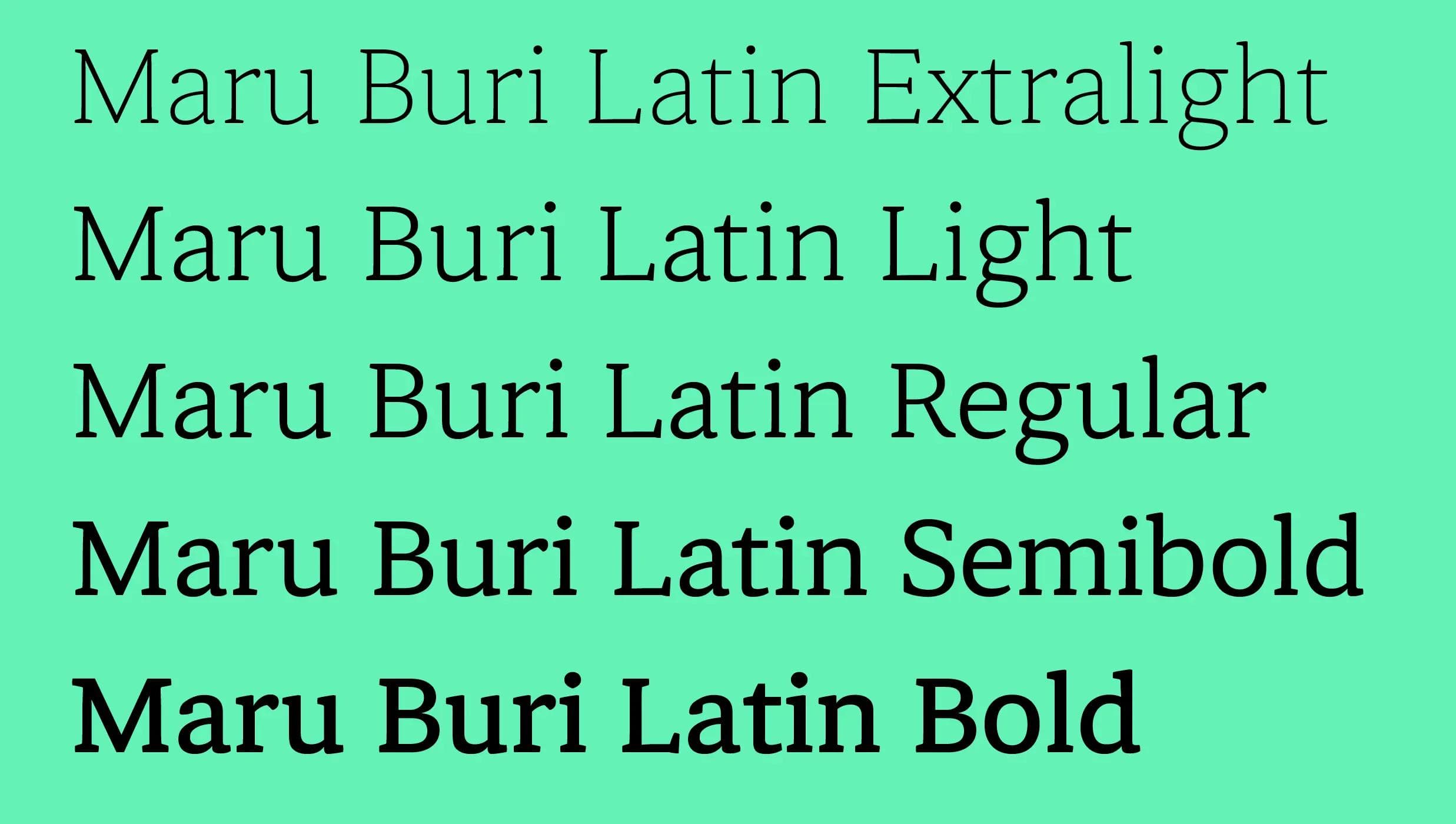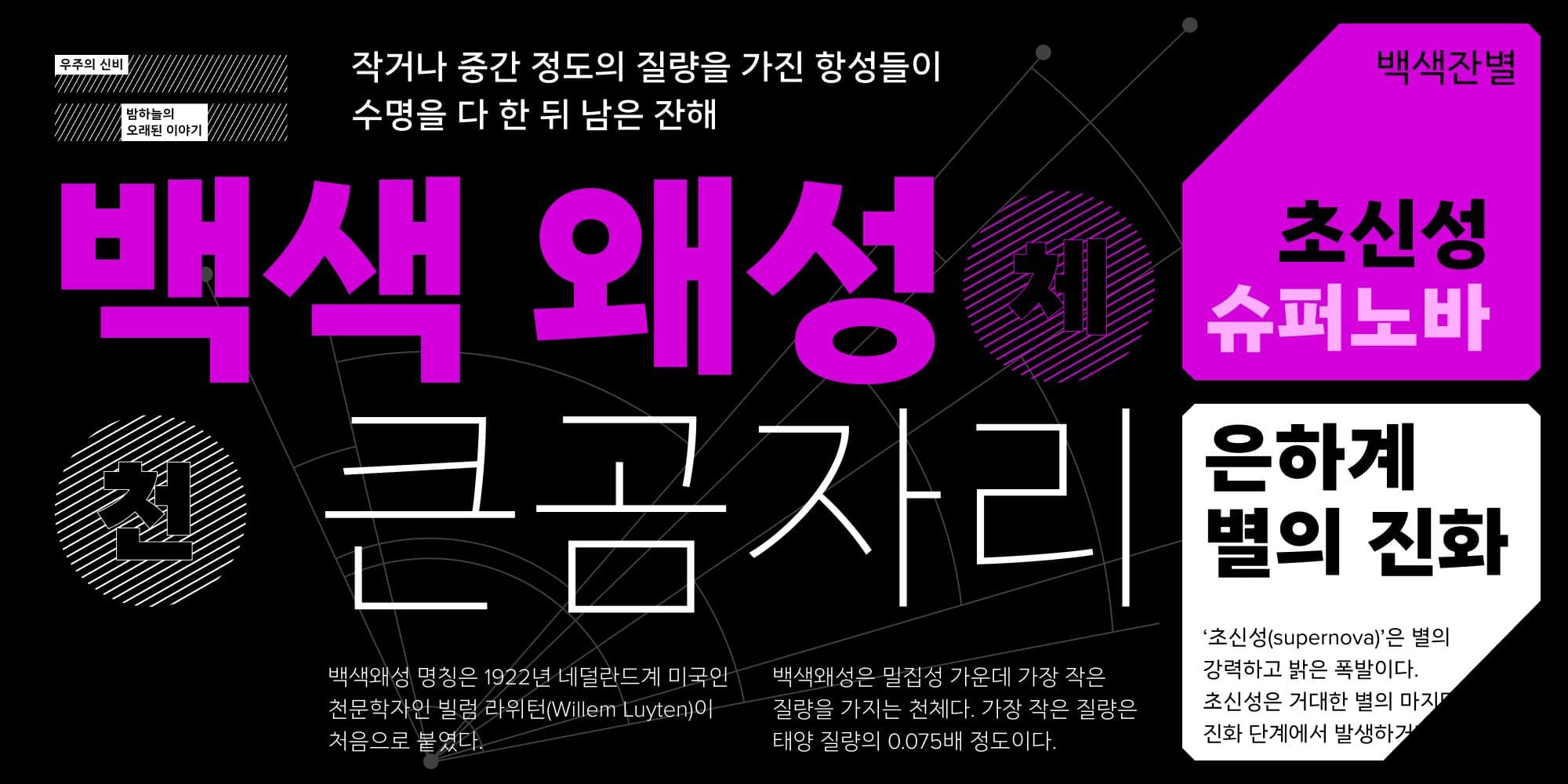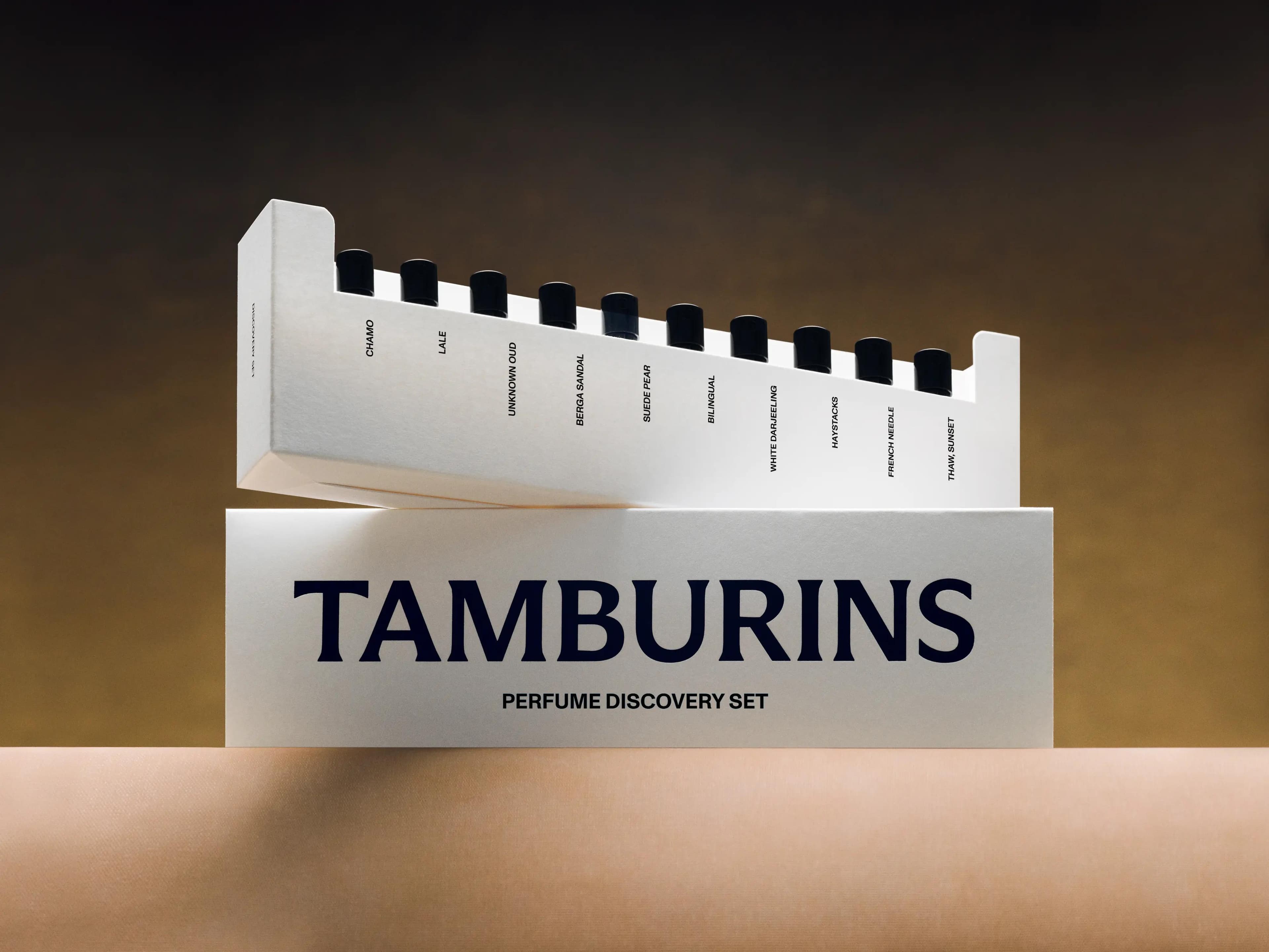
Like every question involving brand strategy in a global and digital environment, the answer is complex. Here, we offer you our thoughts on the matter.
The range of typefaces designed by talented people is growing week by week. The variety of shapes, concepts and intended usages is also a matter of constant discussion and growth. With having that in mind, it's interesting to open the conversation.
Like every strategy in branding, creating an original typeface gives you full control of the structure of your project. From understanding your audience to building the future message of your brand, you can collaborate with a type designer to deliver the right message across your entire marketing channel. The majority of your customer-facing communication will pass through written text, whether individual words, sentences or slogans. So when they encounter your brand, the first thing many of your potential clients will see is a group of shapes – a group of letters. Having a custom typeface gives you unlimited space to transmit a message that is carved into your brand image.
Let's take the digital sphere as a case in point. The last 8-10 years have seen a massive increase of mobile-based information channels. While other larger formats give more opportunity to use a wider range of media like photographs, movies, and stores and events can offer physical experiences, the mobile is quite limited in terms of media formats. However, its limitations mean that it’s an open space for a different kind of visual interaction with a brand. This is where your custom typeface comes in. By drawing and building a type family that can express the different messages of your product or service, you can create a powerful relationship with your audience.
These last 3-4 years, technology has also given us access to more motion-oriented communication and to a new feature called "variable". With this technology, you can create more dynamic aspects to any kind of text, words, textual expression or interaction.
The process of designing a custom project
The most interesting aspect of a brand lives in its strategic core. We believe that a custom typeface is not a final touch that comes through production at the end of any branding project; it’s part of the core expression of the brand’s ideals. Building the concept and the shapes behind your future typeface means that we take into account both symbolic and functional considerations. We ally the image projected by your brand and the context in which the future product will be used.
Our skills are oriented on the Latin & Hangeul (Korean) alphabets. We gather samples and research from archives and specimens, with more unique research made through sketches, including the use of different writing tools. This analog period gives us the ability to shape a project with a strong sense of purpose rather than it simply being an exercise of skills.
Our competencies and interest area is also strongly oriented toward multi-script design. We create typefaces and fonts that work in both the Hangeul (Korean) and Latin script. Through typefaces, we form cultural bonds and extend cultural boundaries. We hope to continue to build type projects that bring these two cultural worlds together.
As we push a project forward, we use the latest digital tools to build families and font in order to align with the latest standards. On any custom font or type family project, we also offer our experience with variable fonts, color fonts and opentype features that go beyond the standard usages.
In collaboration with AG Typography Institute, we developed "Happiness Sans", a typeface for the brand identity of The Hyundai Department Store in South Korea. lo-ol type studio took charge of the Latin part.
Happiness Sans is at the core of the brand's identity. It is a typeface with a bright and cheerful visual expression. It also possesses a variable font, which transform it into an powerful tool for digital environments. The typeface extends to two variable axis: the weight axis and the optical size axis.
Hangeul typefaces with a fixed width have the most stable structure. The tip of the stroke is neat and the seam is smooth. The title font of Hangeul is characterized by a cheerful ascending curve of [ㅅ] and an energetic apex of [ㅎ].
In line with the modern structure of Hangeul, the Latin alphabet was designed by referring to the structure and shape of the Early Grotesque. We designed Latin to visually match with the Hangeul in size. This made the lines stable when using the Hangeul and Latin alphabets together.
To use numbers in any circumstances, they are drawn with both variable width and fixed width. [0], [1], [2], and [7] are made with various styles sets.
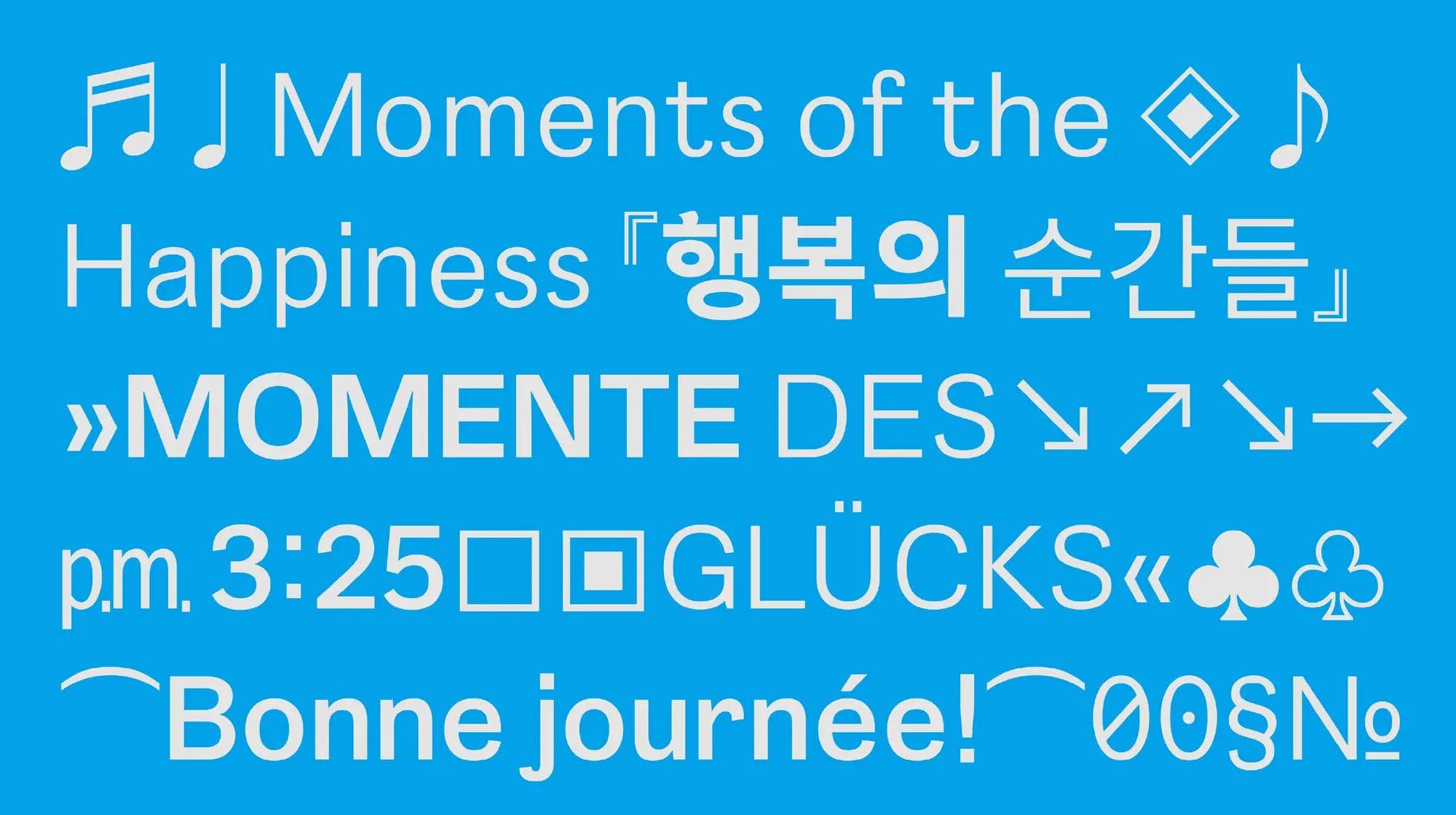
Naver, Naver Cultural Foundation, and AG Typography Institute released the "Maru Buri" type family. The "Maru Project" explores the genealogy of the Hangeul typeface from the birth of Hangeul to the appearance of the current Hangeul typefaces. This version embraces new media environments.
The "Maru Buri" is a serif style typeface (serif = buri) for text layouts. It brings warmth to the screen and offers various visual choices in digital media. The design was developed using Choi Jeong-ho's Buri style series. The basis of the text typeface for print and the font were created in order to achieve youthful, dignified and bright visual direction.
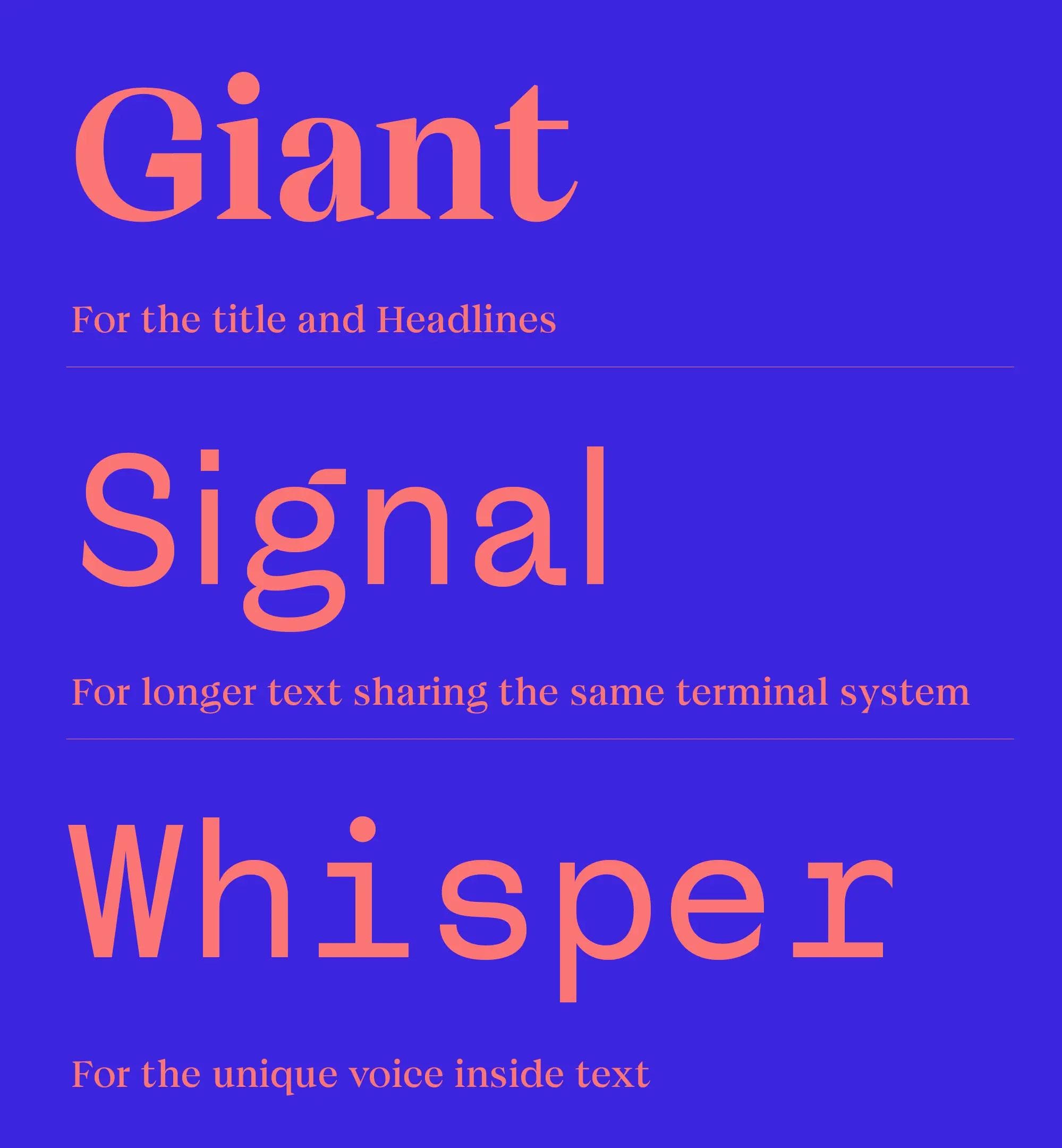
"Doran" is a typeface commissioned by Doran Sou, a bed and house supplies based in Geneva. The font reflects the harmonious and exciting universe of dreams and sleeping time.
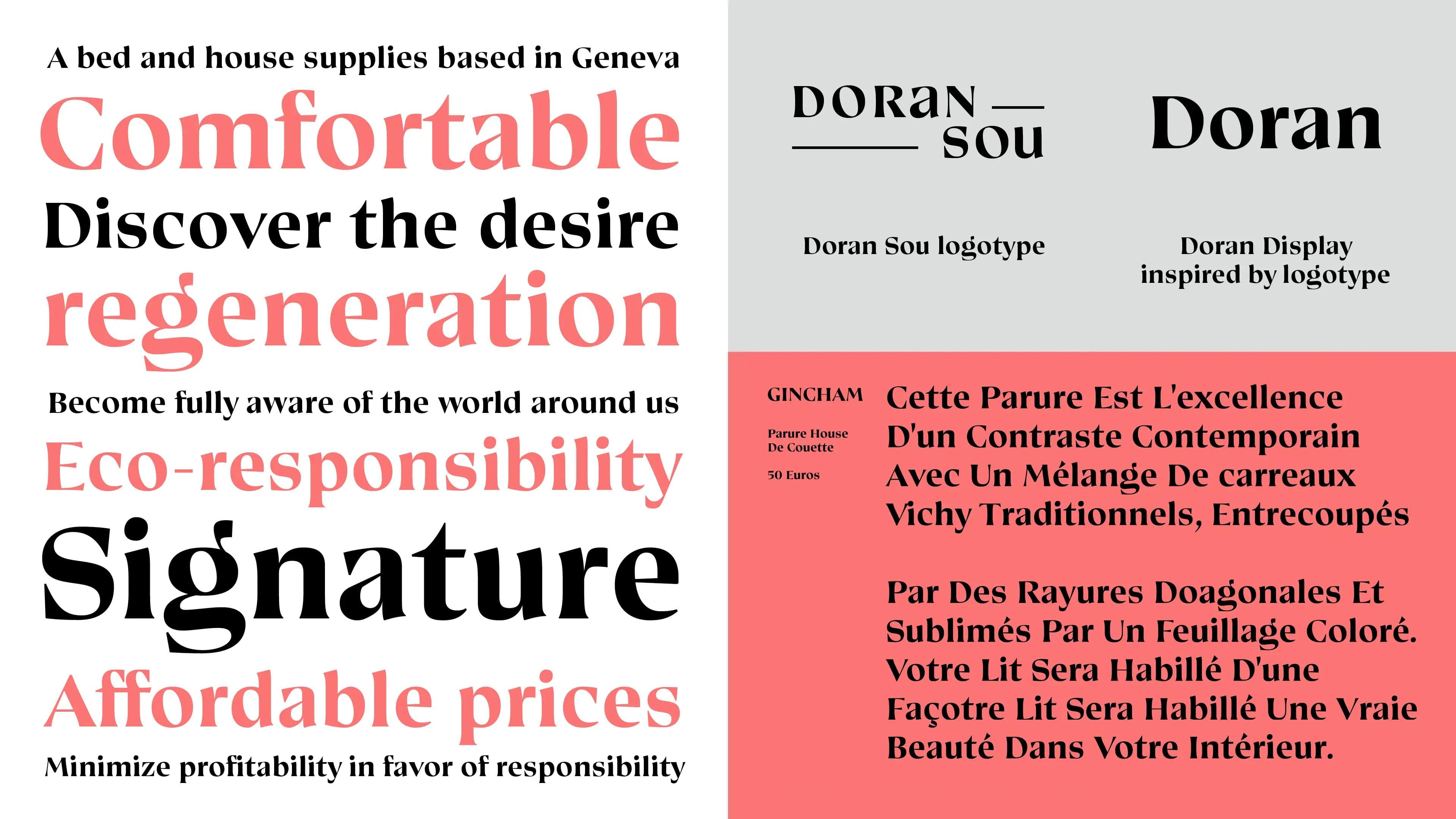
We have collaborated with Tamburins, a Korean cosmetic brand for their new logo and identity for their perfume line.